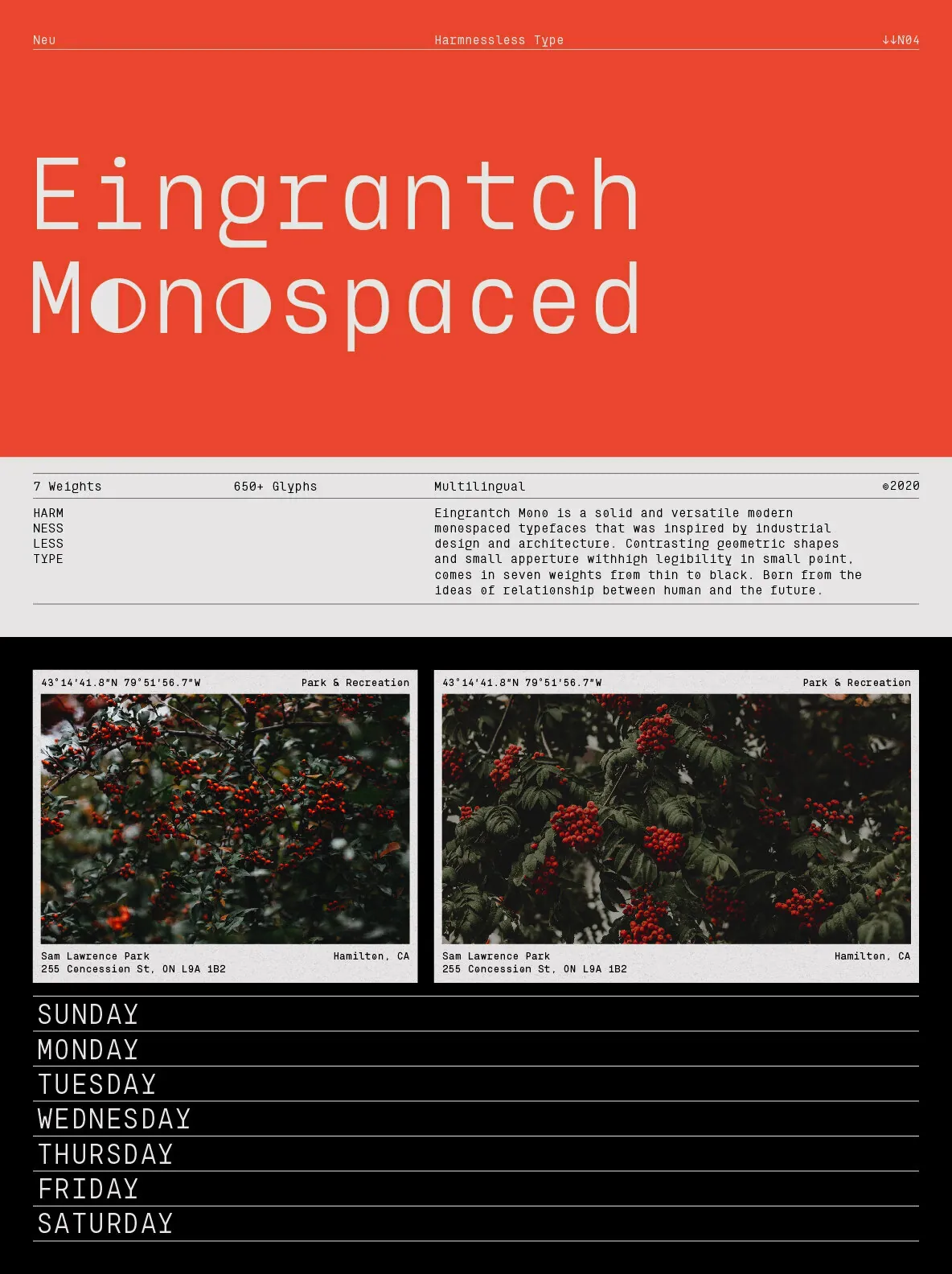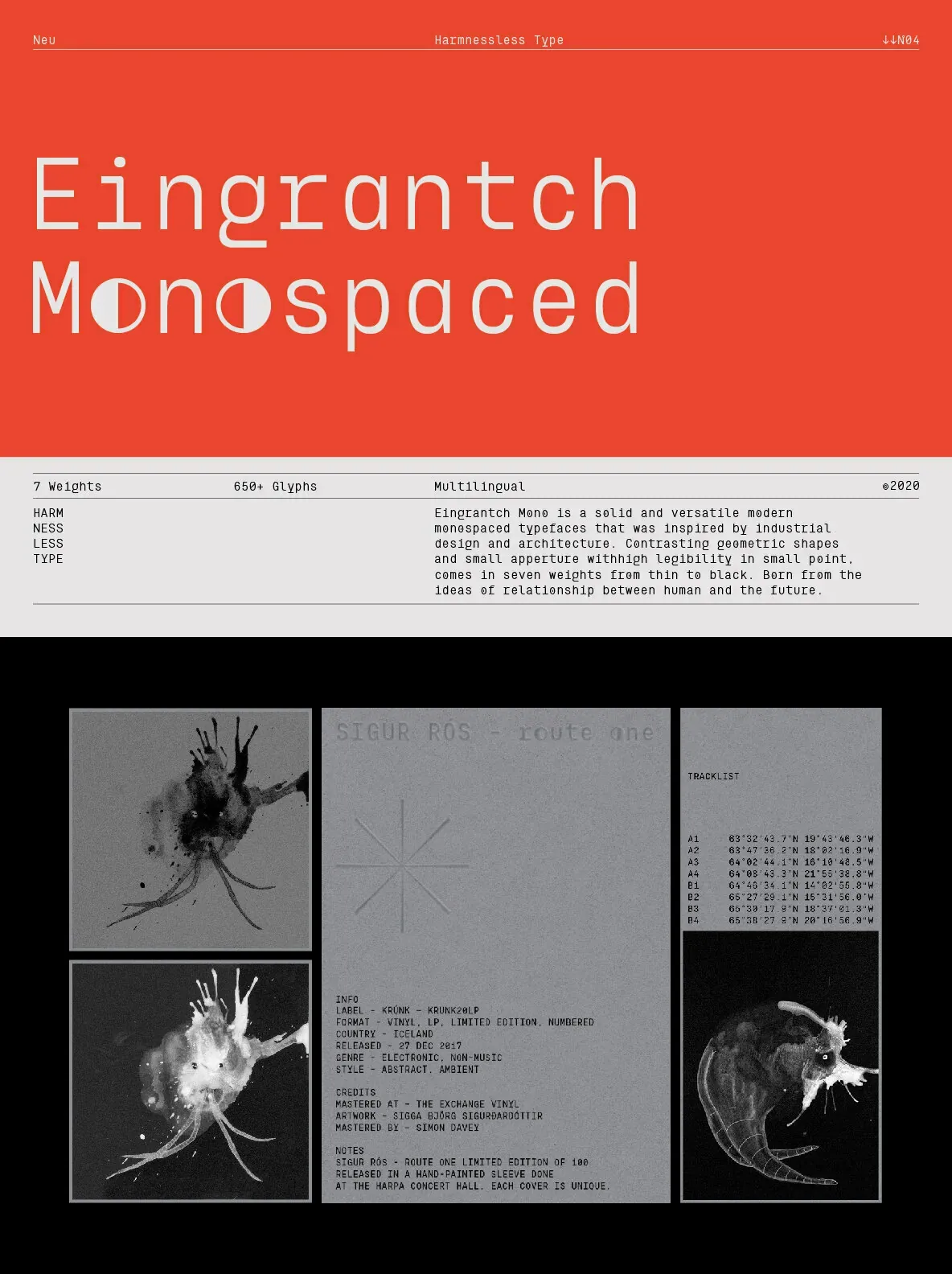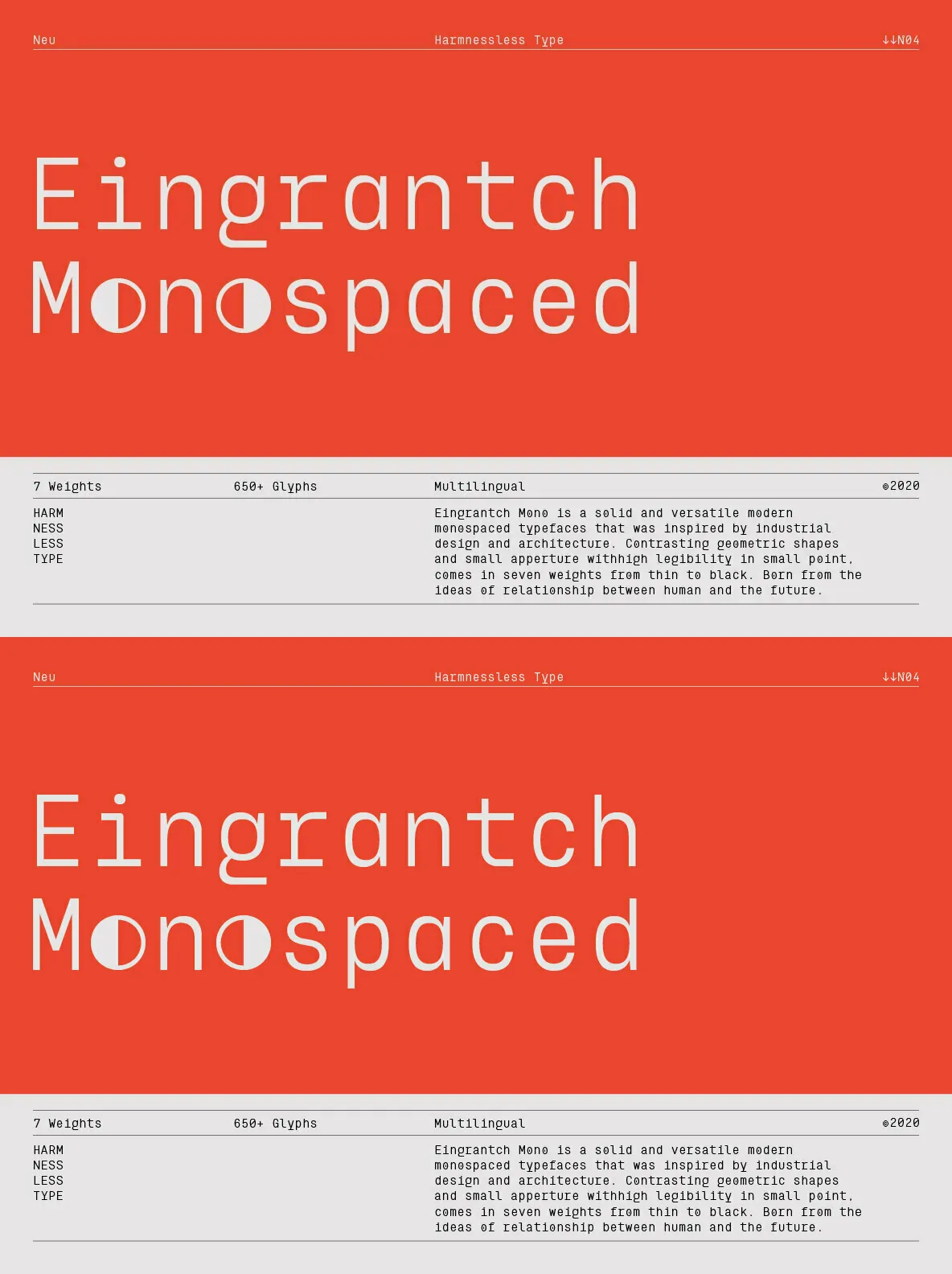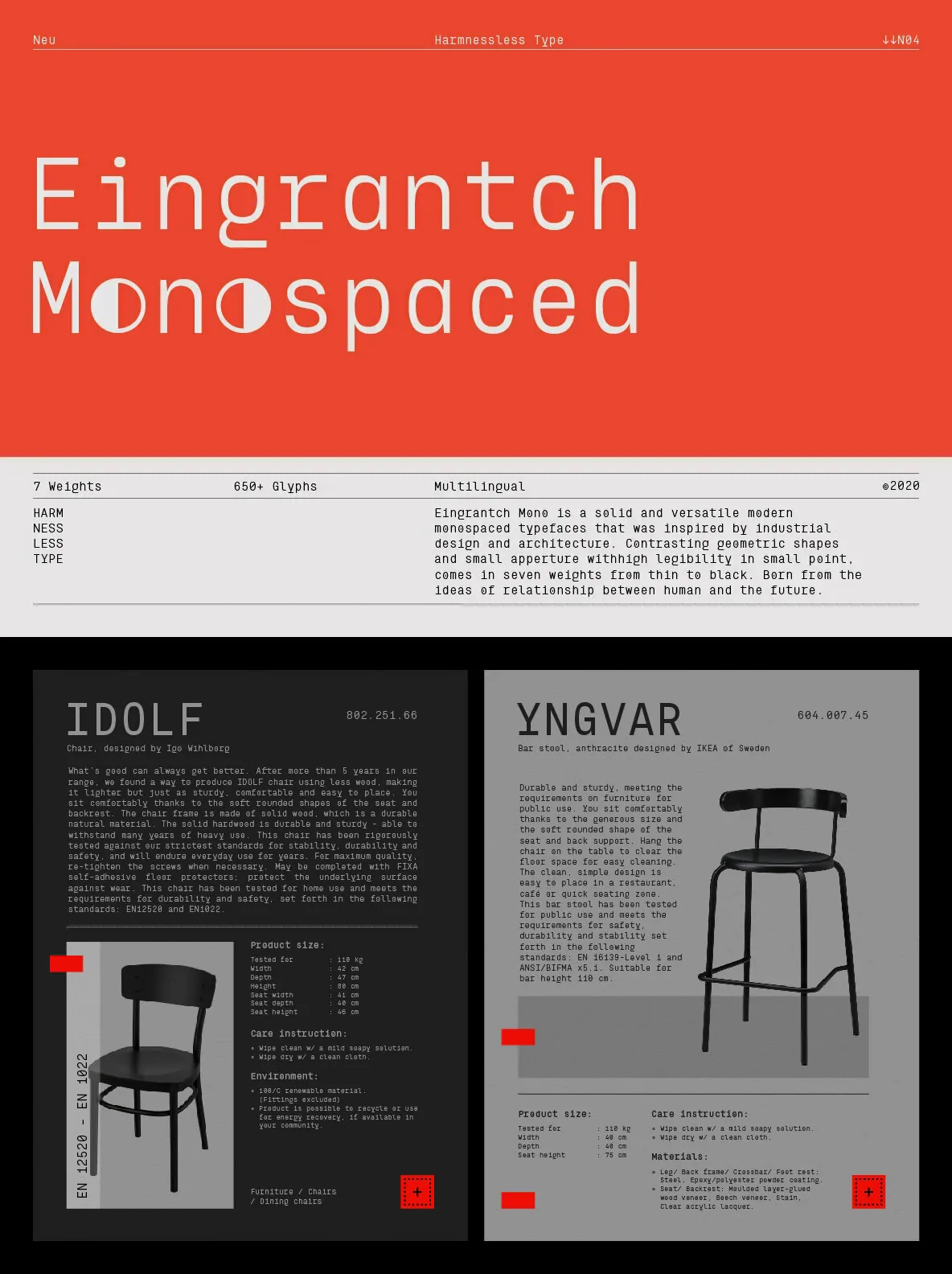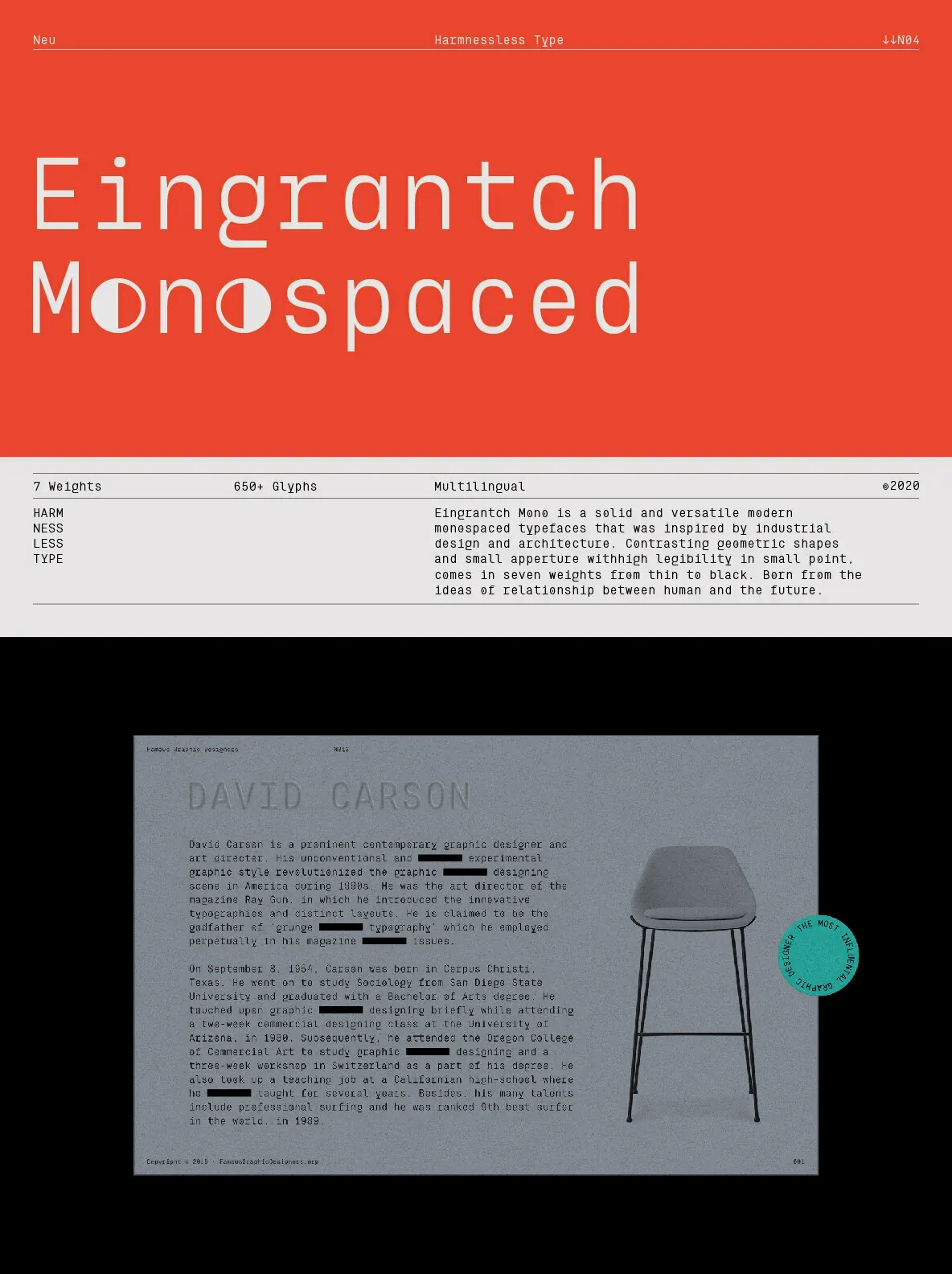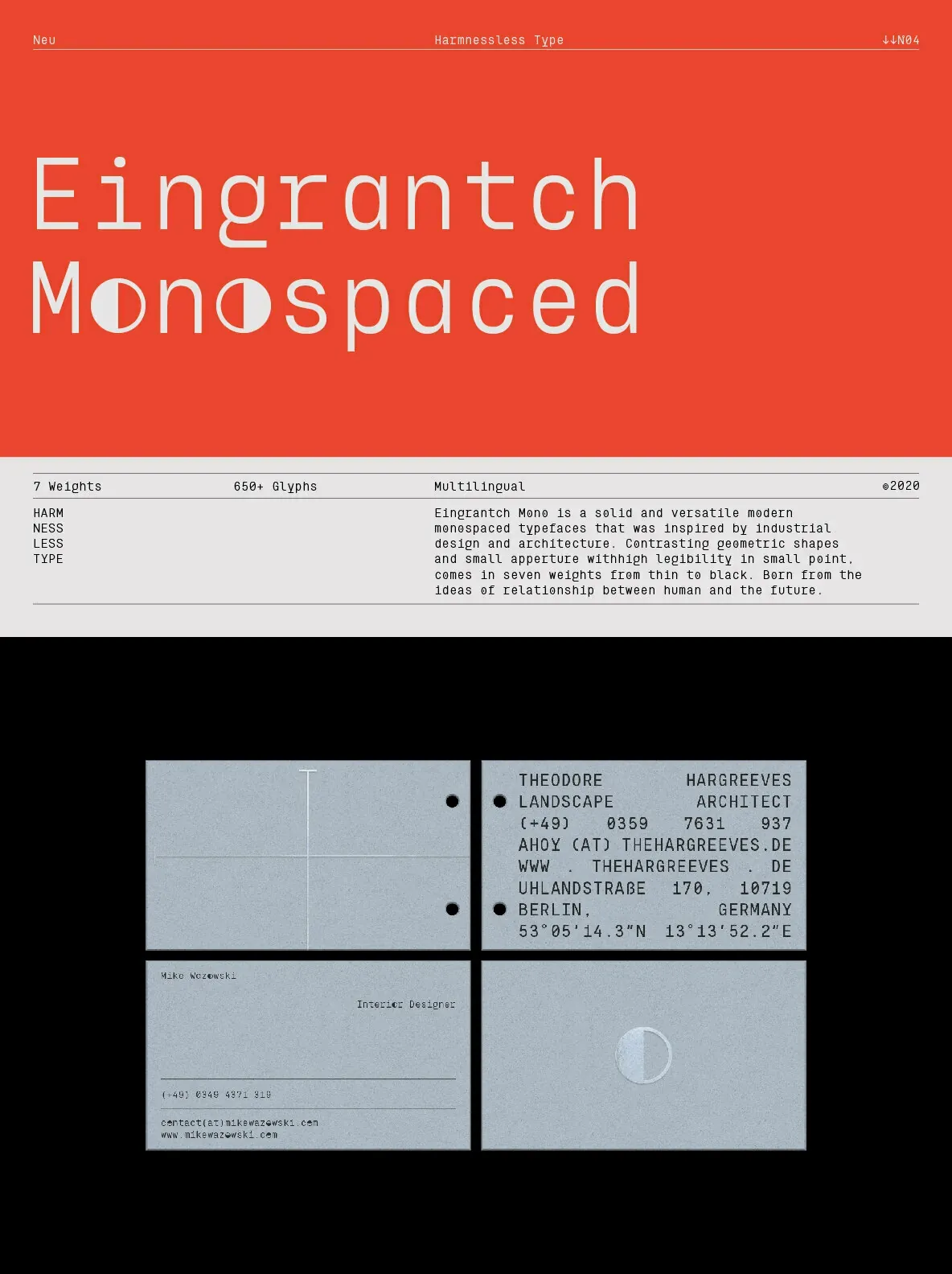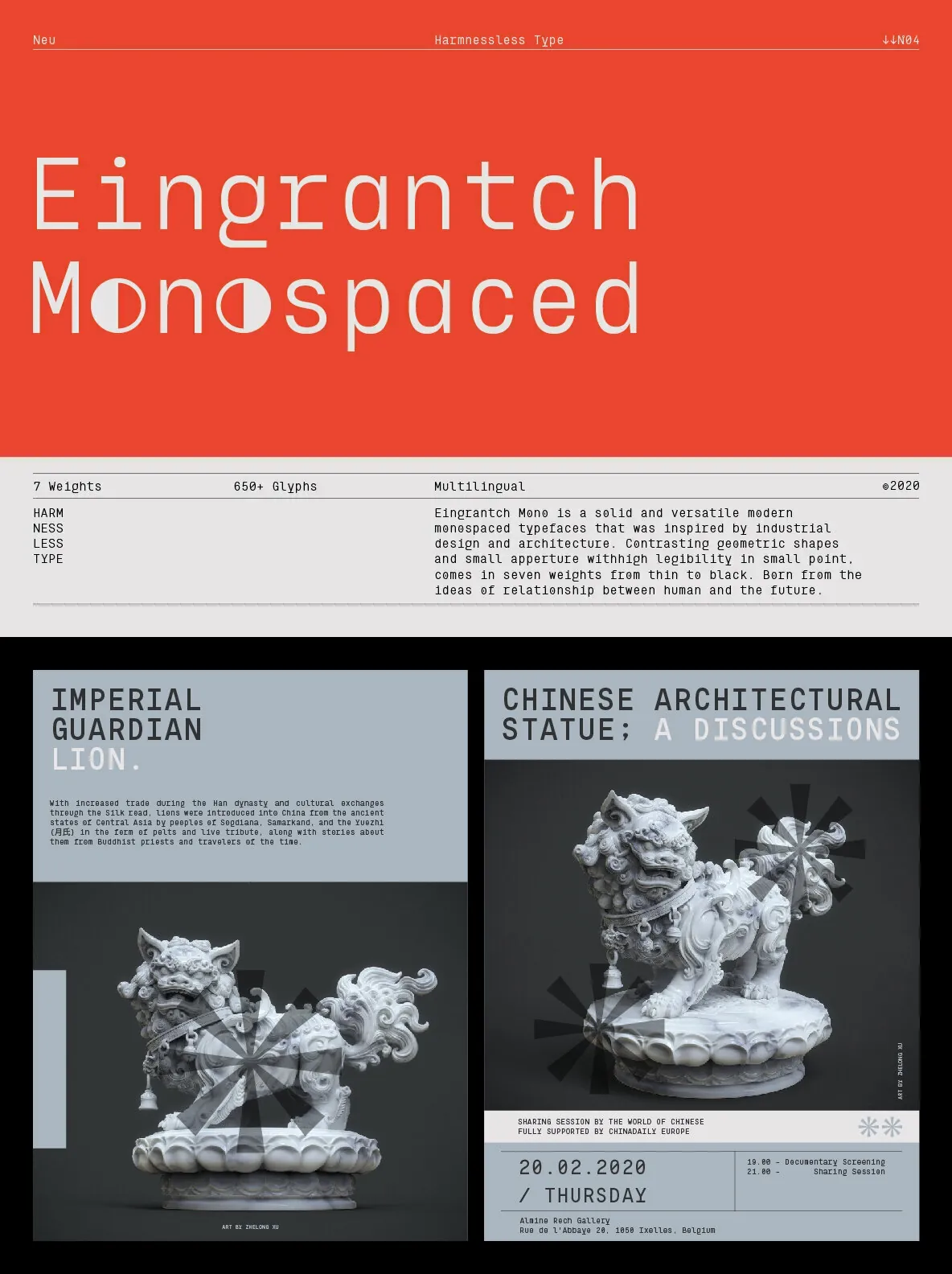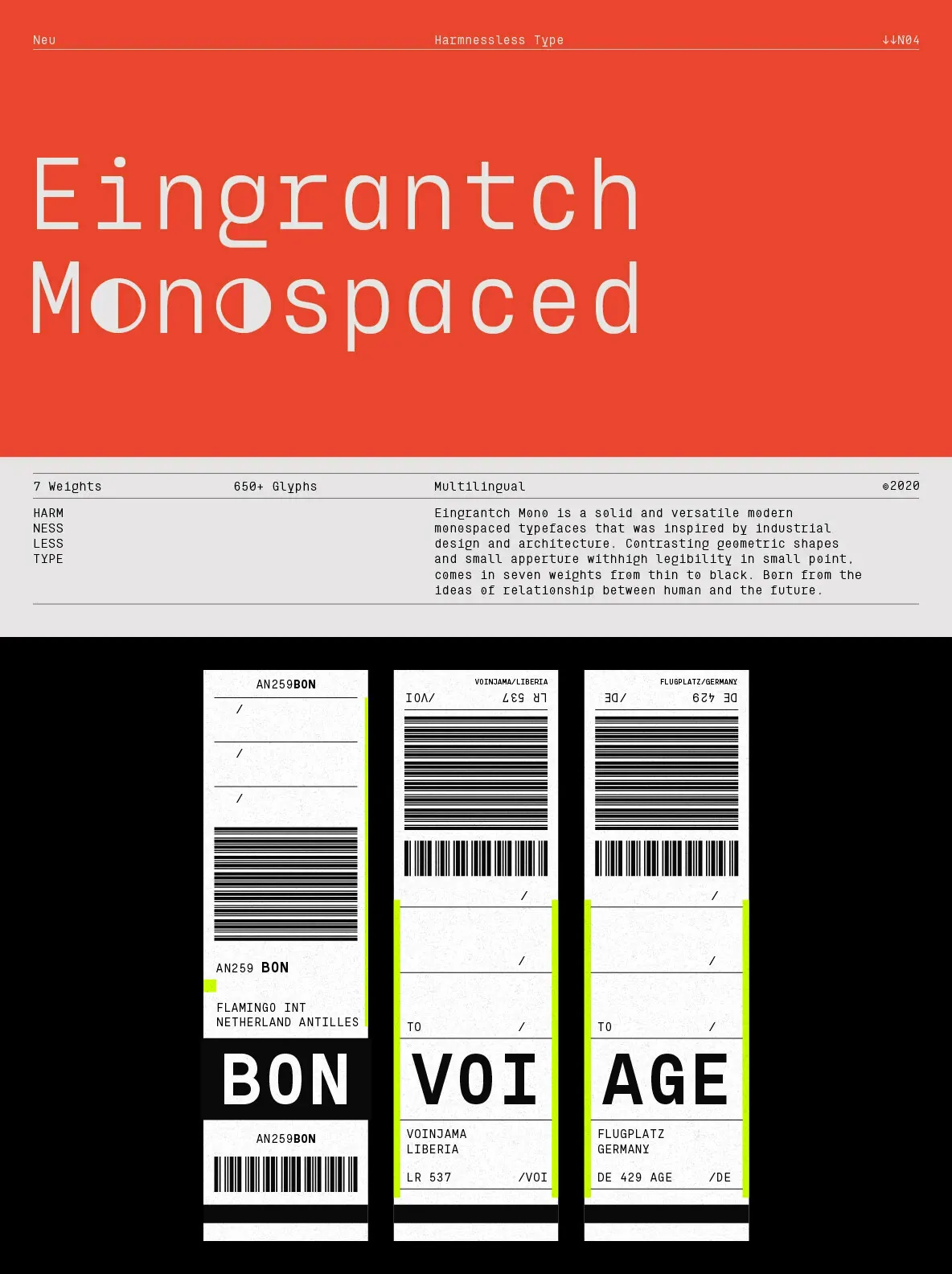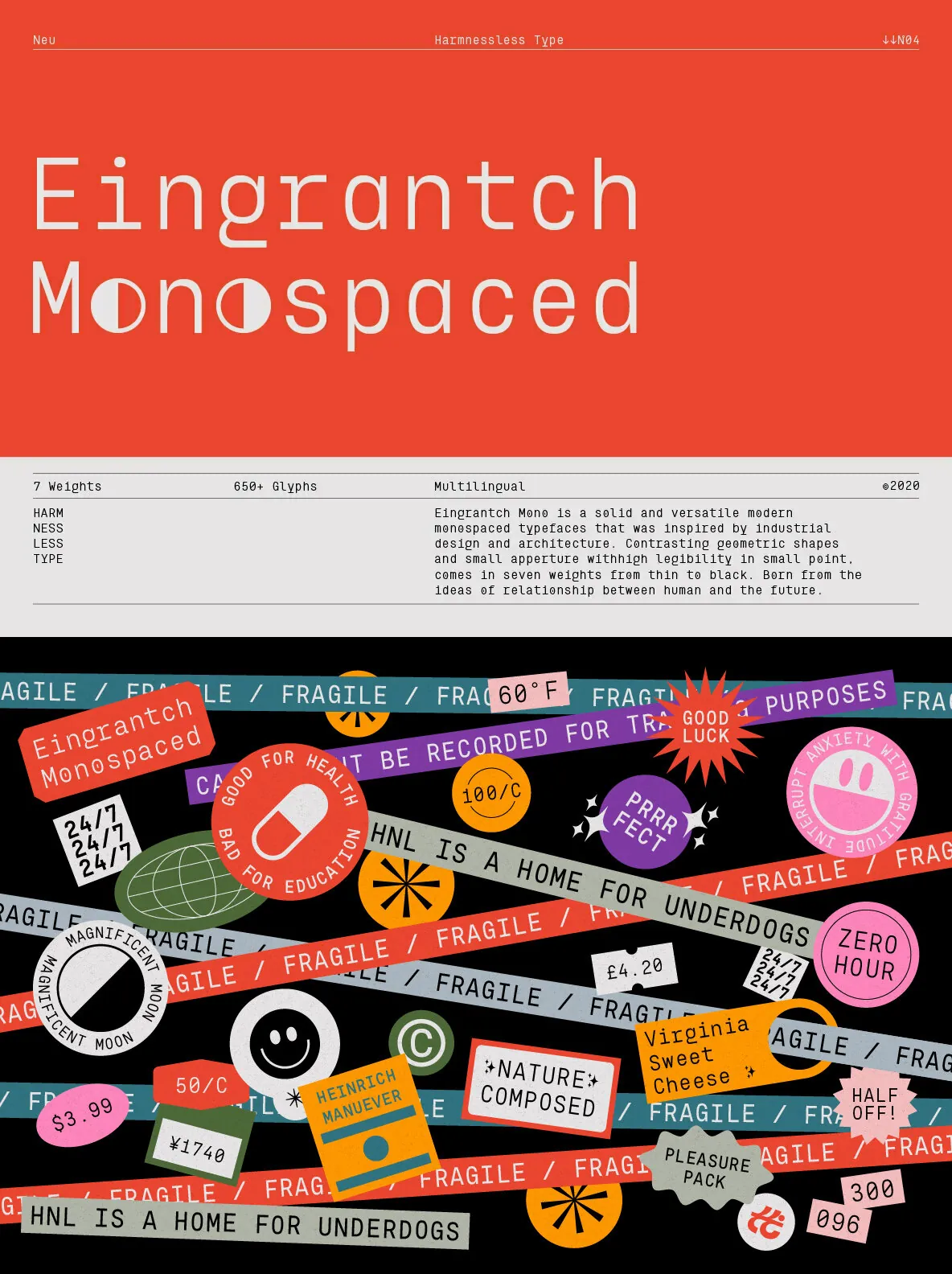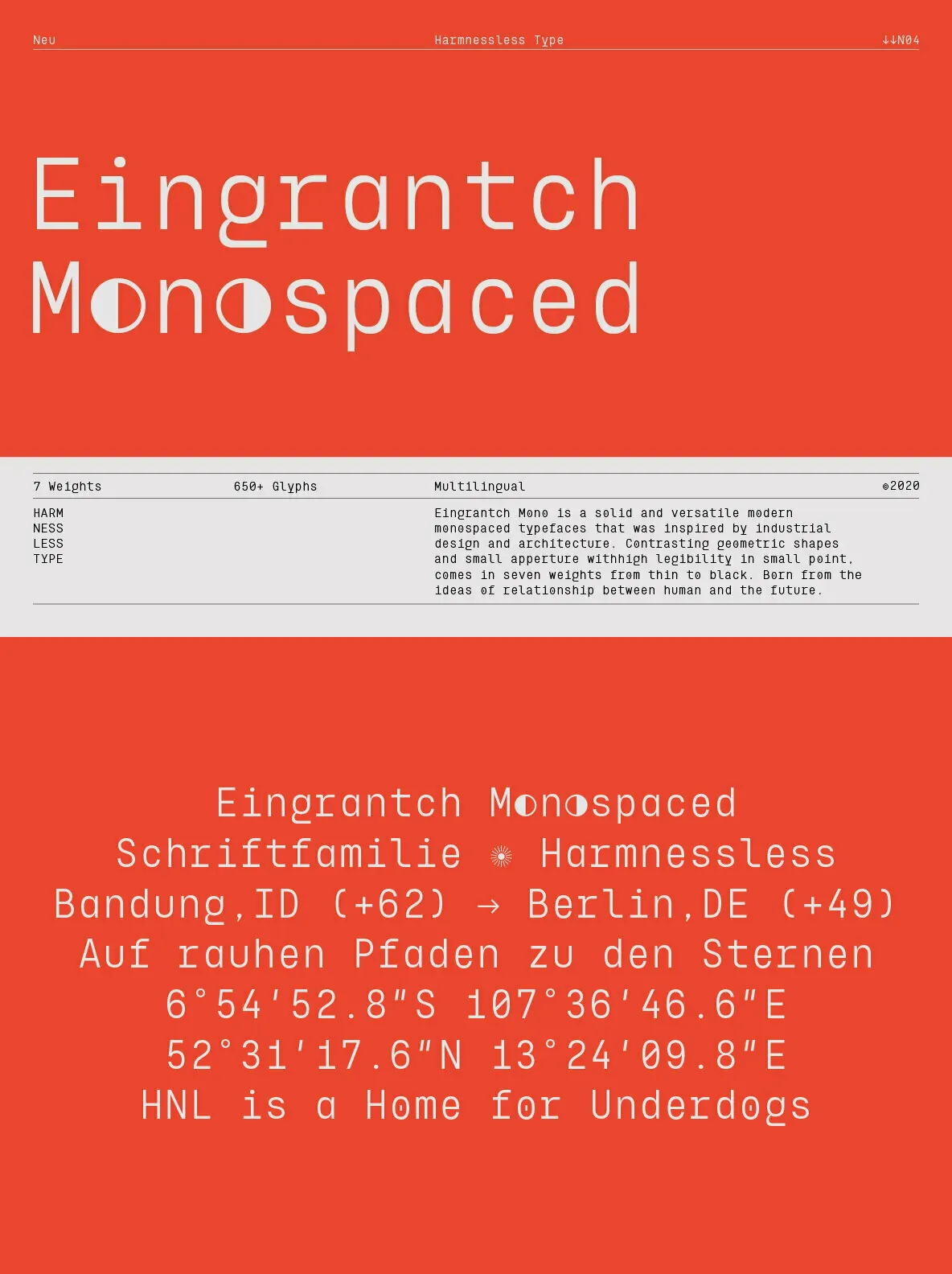
Eingrantch Monospaced is a monospaced neo-grotesk based typeface, inspired by an old Continental typewriter in sans serif version. Available in 7 weights from thin to black. Well suited for modern logotypes, branding, editorial design as well as web and screen design.